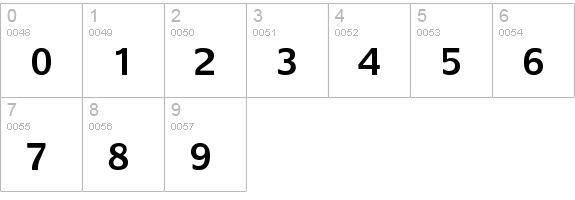
PraxisEF-SemiBold Font Details
PraxisEF-SemiBold is a sub-bold, structured variant in the PraxisEF typeface family \xE2\x80\x94 well suited to sub-headlines and emphasised passages.
PraxisEF-SemiBold font is a modern and versatile typeface that exudes confidence and authority. Its semi-bold weight strikes the perfect balance between boldness and readability, making it ideal for a wide range of design projects. With its clean lines and contemporary aesthetic, PraxisEF-SemiBold is a go-to choice for logos, headlines, posters, and other display applications. What sets PraxisEF-SemiBold apart is that it is available for free download at FontsMarket.com, allowing designers and creatives to access this high-quality font without any cost. Whether you're working on branding, advertising, or editorial design, PraxisEF-SemiBold offers a sleek and professional look that will elevate your projects to the next level. Don't miss out on this fantastic opportunity to enhance your design toolkit with PraxisEF-SemiBold font. Download it today and start creating stunning visuals with ease.